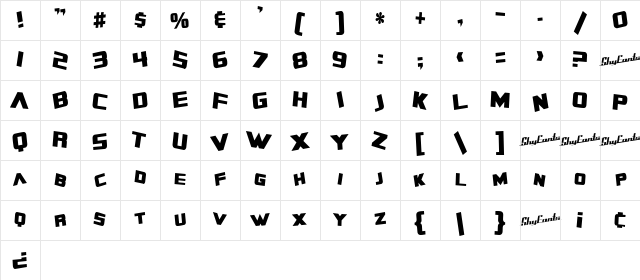
SF Zero Gravity Condensed Bold Free Font
SF Zero Gravity Condensed Bold
Design Context for SF Zero Gravity Condensed
SF Zero Gravity Condensed is a composed and adaptable typeface that performs quietly and consistently across a wide range of design contexts. Its bold stroke weight gives it real presence on the page. Its narrow stance lets it pack a punch even in space-constrained designs.